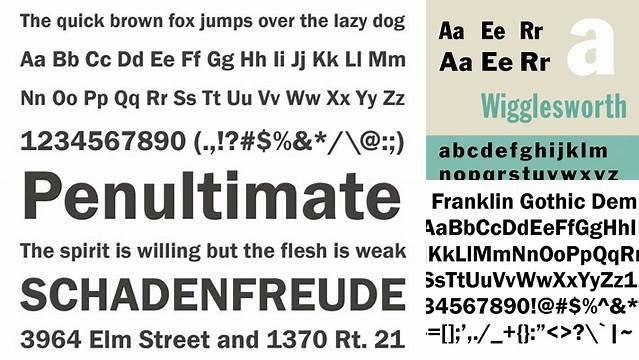
Franklin Gothic Demi Font: Free Download & Design Guide
Franklin Gothic Demi Font Free Download: Your Ultimate Guide to a Timeless Typeface
Are you guys looking for a font that screams both sophistication and readability? Look no further than Franklin Gothic Demi! This classic typeface has been a go-to for designers and writers for decades, and for good reason. Its clean lines, strong presence, and versatility make it perfect for everything from headlines to body text. And the best part? You can often find a Franklin Gothic Demi font free download, making it accessible for all your creative projects. Let's dive into everything you need to know about this amazing font, including how to snag that free download.
What Makes Franklin Gothic Demi So Special?
Franklin Gothic Demi is more than just a font; it's a statement. Born in the late 19th century, this American gothic sans-serif typeface was designed by Morris Fuller Benton. Its bold, impactful design quickly made it a favorite for newspapers, magazines, and advertisements. One of the key things that makes Franklin Gothic Demi stand out is its balance. It's strong enough to grab your attention, yet it's still incredibly readable, even at smaller sizes. This makes it ideal for both print and digital media. You can see this font everywhere, from movie posters to website headings! So, what's the magic? Well, it's all about the design. The font features a generous x-height, making it easy to read, and its slightly condensed form gives it a sense of authority. The thick strokes and clear letterforms ensure that your message will always come across loud and clear. Plus, the font family is vast. With various weights and styles, you can easily find the perfect match for your specific needs. Want a heavy headline? Use the bold version! Need something more subtle? Try the book weight. The versatility is truly amazing, making Franklin Gothic Demi a workhorse for designers.
Another reason for the font's popularity is its timeless appeal. Trends come and go, but Franklin Gothic Demi remains a classic. It's a font that doesn't feel dated, and it can be used in a wide range of projects without looking out of place. Whether you're designing a website, creating marketing materials, or simply writing a document, this font can help you achieve a professional and polished look. It projects confidence and reliability, making it a great choice for businesses and individuals alike. It's also super versatile! You can mix it with other fonts to create interesting and unique typographic layouts. For example, you can pair Franklin Gothic Demi with a more delicate serif font for a touch of elegance. This flexibility makes it a valuable asset for any creative project. Consider its legibility too! This font is not just about aesthetics, it's also about usability. Because of its clear letterforms and generous x-height, Franklin Gothic Demi ensures that your text is easy to read. This is especially important for things like long-form articles, where readability is key. No one wants to struggle to decipher a poorly designed font! The design of Franklin Gothic Demi actually promotes a seamless reading experience, helping to keep your audience engaged with your content. This makes the font an excellent choice for everything from books to online articles.
Tips for Using Franklin Gothic Demi Effectively
So, you've got your Franklin Gothic Demi font free download (or you've purchased it, no judgment!). Now what? Let's get into how to use this awesome font effectively! Think about how you'll pair it. Franklin Gothic Demi works great with a variety of other fonts. Consider using a contrasting serif font for body text or a more delicate sans-serif font for subheadings. The key is to create a visual hierarchy that guides the reader through your content. Experiment with different weights and styles. The font family usually includes different weights (light, regular, bold, etc.) and styles (italic, condensed, etc.). Experimenting with these variations can help you create a design that is unique. Just make sure that you choose fonts that complement each other and enhance readability. Don't overdo it with the styling. While the bold weight of Franklin Gothic Demi is great for headlines, using it for all of your text can be overwhelming. Instead, use it sparingly to draw attention to key information. Keep in mind the context! Franklin Gothic Demi is a versatile font, but it might not be the best choice for every project. Consider the tone and message you want to convey. For example, it's a great choice for professional or corporate designs, but it might not be suitable for something more playful or casual. Focus on readability. This is crucial for all your designs. Even the most beautiful font won't do you any good if people can't read it! Make sure there's enough contrast between the font and the background. Also, pay attention to the kerning (the space between the letters) and leading (the space between the lines). This can make a huge difference in readability. Plan your layouts. Before you start designing, plan your layouts and create a mood board to visualize your ideas. This will help you to see how your font choices work together and ensure a cohesive design. Be sure to use it consistently. Once you've chosen Franklin Gothic Demi, or a similar font, stick with it throughout your project. This helps to create a sense of consistency and professionalism. The same goes for color palettes! When you stick to consistent design choices, your audience is more likely to perceive your project as trustworthy. Finally, don't be afraid to experiment. Typography is an art, so play around with different combinations and layouts until you find something you love. There are no hard and fast rules! So, use your creativity! This can make the font even better. If you have any questions, don't hesitate to search the web or ask other designers for advice.
Conclusion: Embrace the Power of Franklin Gothic Demi
So there you have it, guys! Franklin Gothic Demi is an awesome font. It's a classic choice for designers of all levels, and it's especially great because you can often find a Franklin Gothic Demi font free download. Its versatility, readability, and timeless appeal make it a valuable tool for any creative project. So, go ahead and download this awesome font, and start creating! With the right design and some practice, you can achieve the perfect design.